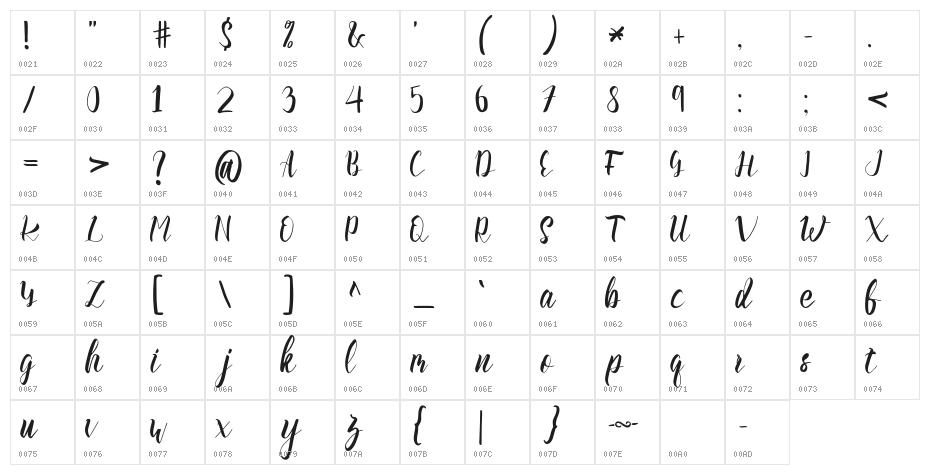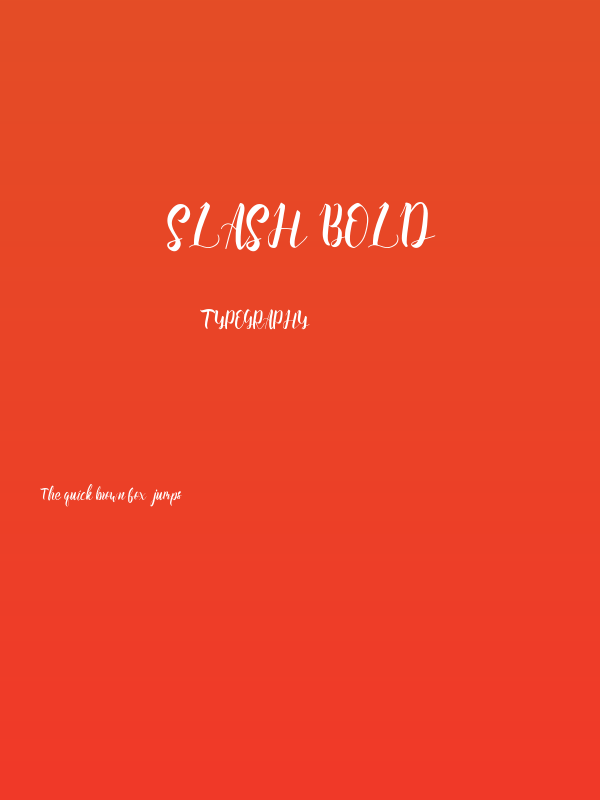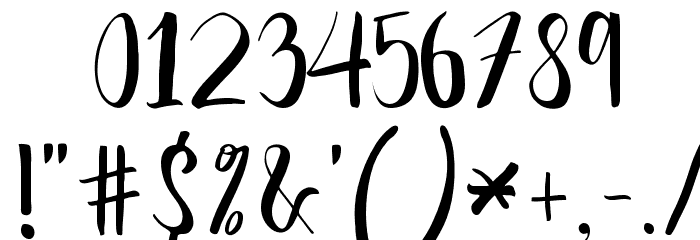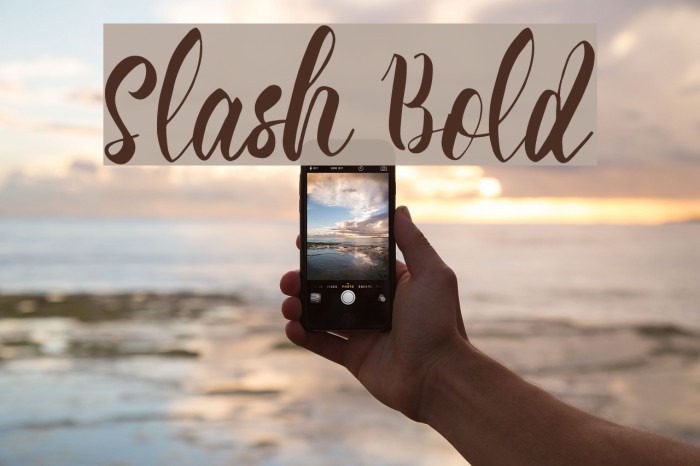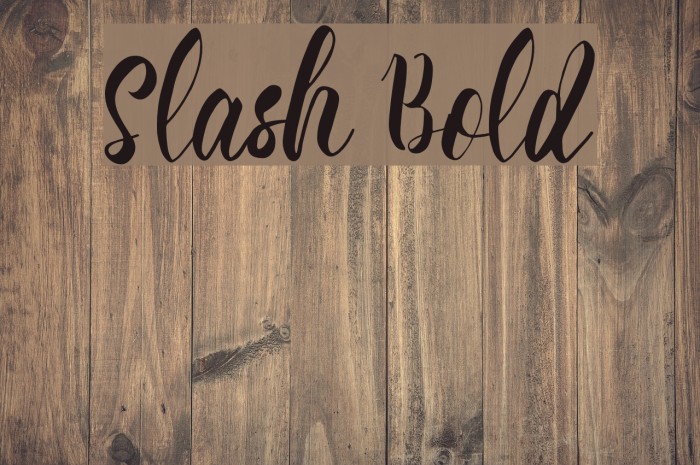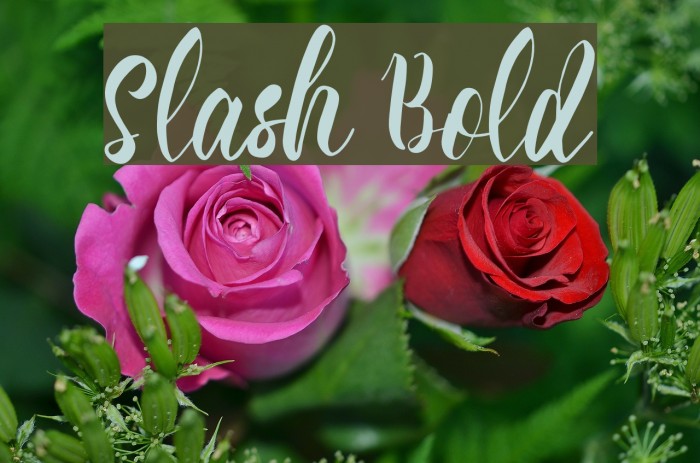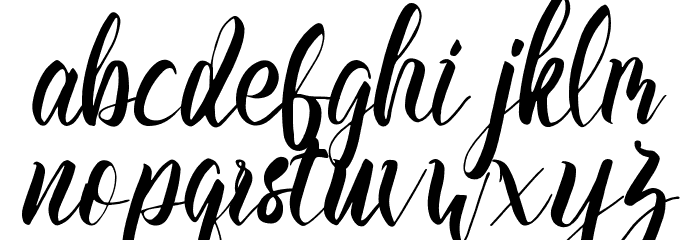
Slash Bold Font
Slash Bold Description
This font features a dynamic and expressive script style with bold, sweeping strokes that convey a sense of elegance and flair. The uppercase letters are characterized by their tall, flowing forms, while the lowercase letters maintain a consistent rhythm with smooth curves and loops. The numerals are equally stylish, integrating seamlessly with the overall design. Special characters are crafted with the same attention to detail, enhancing the font's versatility. This font's bold presence makes it ideal for creating impactful designs that require a touch of sophistication and creativity.
SLASH-BOLD UPPERCASE
SLASH-BOLD LOWERCASE
SLASH-BOLD OTHER CHARS
| Proposed Projects | Ideal for wedding invitations, branding, logos, and artistic posters. |